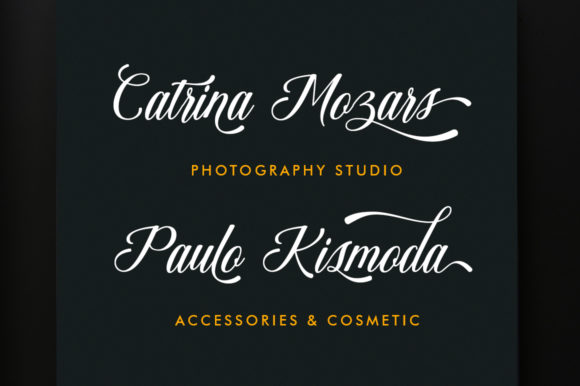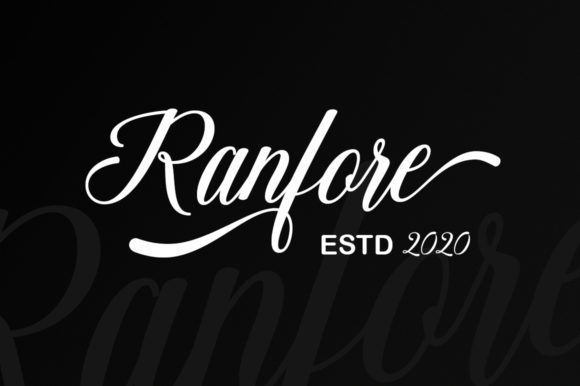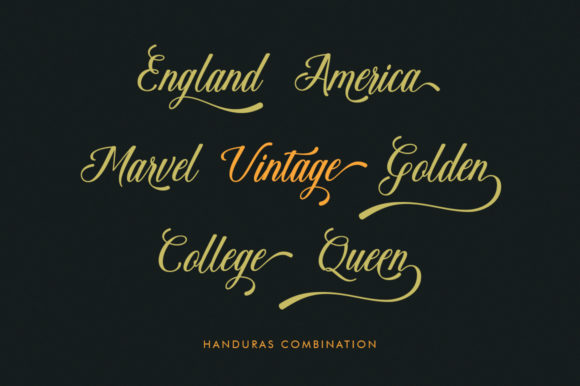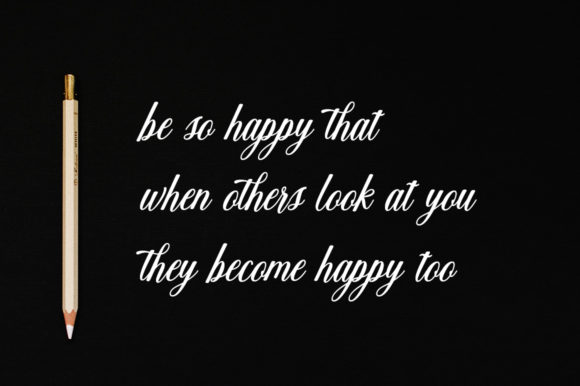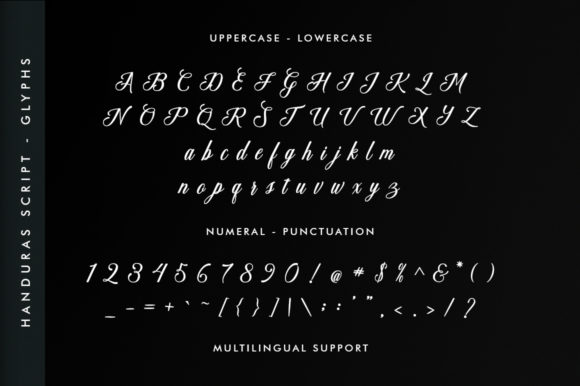
Introducing Handuras Font: Elevate Your Designs with Elegance and Sophistication
In the world of typography, a font can make or break a design. For designers and crafters seeking to add a touch of elegance and sophistication to their projects, Handuras Font is an exceptional choice. This beautiful, handwritten font is designed to bring a sense of luxury and refinement to any design, making it perfect for a wide range of applications, from branding and advertising to packaging and digital media.
What Makes Handuras Font So Special?
Handuras Font is an elegant and flowing handwritten font that boasts a range of features that set it apart from other fonts. Here are just a few reasons why designers and crafters are falling in love with this stunning font:
• PUA Encoding: Handuras Font is PUA (Private Use Area) encoded, which means that you can access all of the glyphs and swashes with ease. This makes it simple to add unique and creative touches to your designs.
• Varying Baseline: The font features a varying baseline, which gives it a sense of movement and fluidity. This helps to create a natural, hand-written feel that is perfect for designs that need to feel personal and approachable.
• Smooth Lines and Gorgeous Glyphs: Handuras Font is characterized by smooth, flowing lines and gorgeous glyphs. Each letterform is carefully crafted to be beautiful and elegant, making it perfect for designs that need to convey a sense of sophistication and refinement.
• Stunning Alternates: In addition to its beautiful standard glyphs, Handuras Font also includes stunning alternates that allow you to add even more creativity and variety to your designs.
A Font that Balances Tradition and Modernity
One of the things that sets Handuras Font apart is its ability to balance traditional calligraphic influences with a modern, contemporary feel. The font maintains the elegance and sophistication of traditional calligraphy, while still feeling fresh and modern. This makes it perfect for designers and crafters who want to create designs that feel both timeless and current.
Use Handuras Font to Elevate Your Designs
Handuras Font is an incredibly versatile font that can be used in a wide range of design applications. Here are just a few ideas for how you can use this beautiful font to elevate your designs:
• Branding and Identity: Use Handuras Font to create stunning logos, business cards, and other branding materials that convey a sense of elegance and sophistication.
• Advertising and Marketing: The font’s beautiful, flowing lines make it perfect for use in advertising and marketing materials, such as brochures, flyers, and social media graphics.
• Packaging and Product Design: Add a touch of luxury and refinement to your product packaging with Handuras Font.
• Digital Media: The font is also perfect for use in digital media, such as website headers, email newsletters, and social media graphics.
Get Ready to Fall in Love with Handuras Font
If you’re looking for a font that will help you to create stunning, sophisticated designs, then Handuras Font is the perfect choice. With its elegant, flowing lines, gorgeous glyphs, and stunning alternates, this font is sure to become a favorite in your design arsenal. So why wait? Download Handuras Font today and start bringing your designs to the highest levels!
In conclusion, Handuras Font is a beautiful, elegant handwritten font that is perfect for designers and crafters seeking to add a touch of sophistication and refinement to their designs. With its PUA encoding, varying baseline, smooth lines, gorgeous glyphs, and stunning alternates, this font is sure to impress. Whether you’re working on a branding project, creating advertising materials, or designing packaging, Handuras Font is an exceptional choice. So why not give it a try and see for yourself why it’s quickly becoming a favorite among designers and crafters?